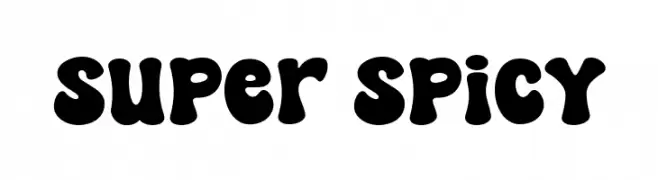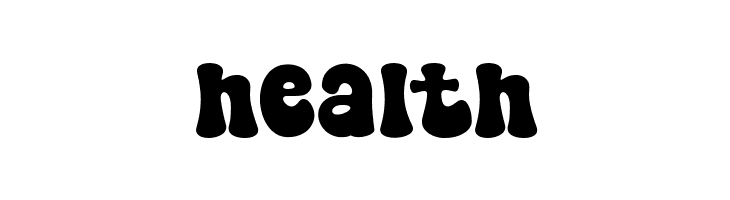
A bold, handwritten font with playful, rounded strokes.
A bold, rounded font with a playful and dynamic style.
A bold, rounded font with a playful and friendly style.
A playful, bold font with rounded edges and a friendly style.
A playful, bold font with rounded, thick strokes and a whimsical style.
A bold, playful font with rounded edges and a slightly condensed style.
A bold, playful font with rounded edges and a modern vibe.
A bold, playful font with exaggerated curves and a whimsical style.
A bold, playful font with rounded, bubbly characters.
A playful, bold font with rounded, thick strokes and a whimsical style.